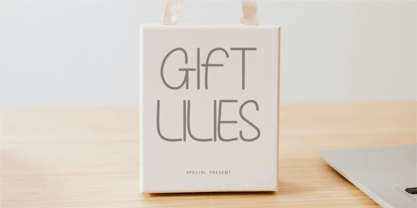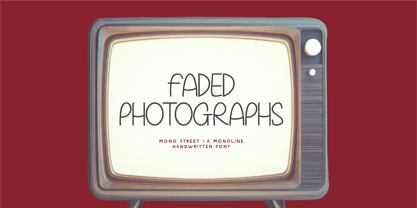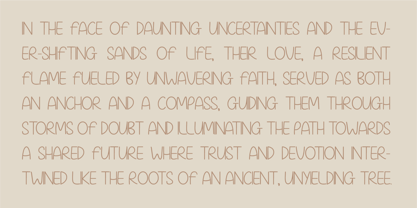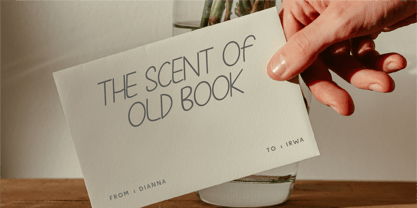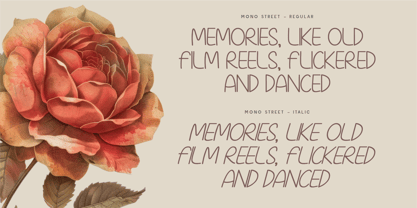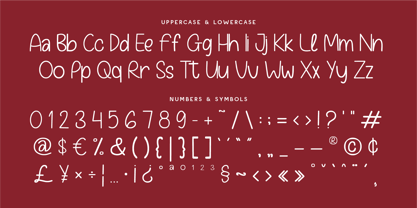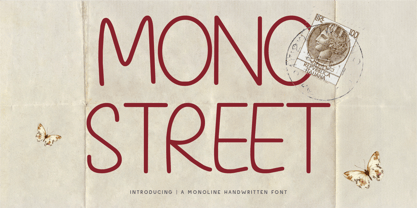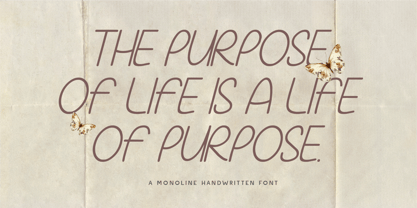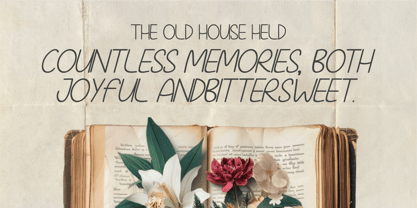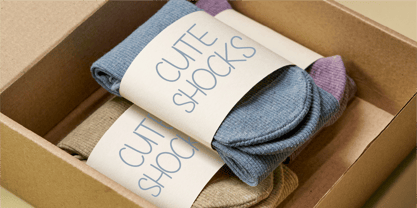
Mono Street – A Minimalist & Stylish Monoline Handwritten Font
Discover the beauty of simplicity and elegance with Mono Street, a monoline handwritten font designed for modern branding, stationery, editorial design, and creative projects. With its thin, consistent strokes and clean letterforms, this typeface brings a sleek and sophisticated touch to any composition.
Whether you're crafting minimalist logos, retro-inspired packaging, social media content, or handwritten notes, Mono Street offers a chic and effortless aesthetic. Its delicate curves and uniform lines make it an excellent choice for fashion, lifestyle, and nostalgic vintage designs.
Why Choose Mono Street?
✨ Minimalist & Versatile: A monoline style that adapts to modern and retro aesthetics.
🎨 Effortlessly Elegant: Perfect for branding, invitations, and creative typography.
🖋 Handwritten Charm: A natural flow that maintains clarity and sophistication.
🌍 Multilingual Support: Includes numbers, symbols, and extensive language compatibility.
- Standard Character A-Z, a-z, 0-9, Punctuation & symbols
- Regular and Italic